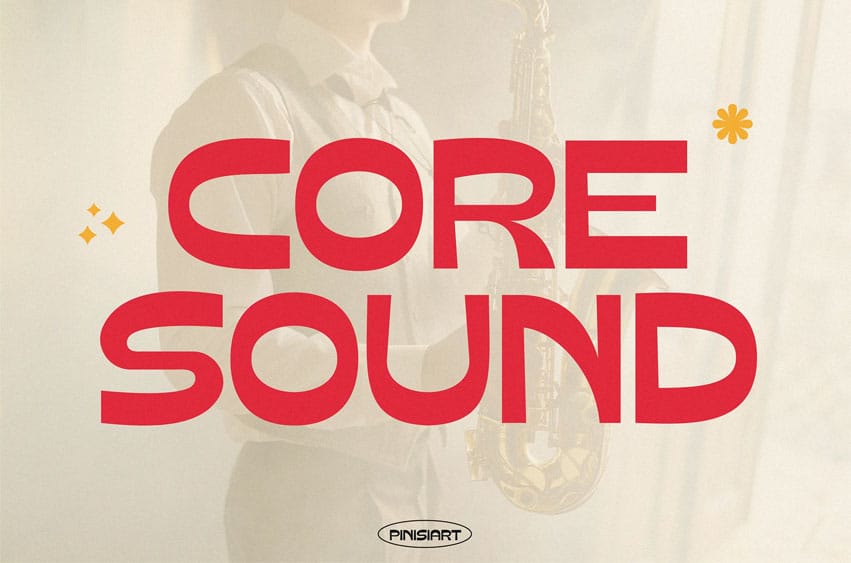
Coresound Font is a retro-inspired display typeface that blends clean rounded forms with rhythmic balance, giving every headline a bold yet approachable energy. With its geometric proportions and smooth letterflow, this font channels the spirit of jazz, groove, and vibrant design culture. Perfect for projects that need expressive impact without sacrificing readability, Coresound creates a strong visual voice for posters, branding, and album covers.
Whether you’re designing a music festival poster, crafting editorial layouts, or shaping brand identities, Coresound brings an energetic retro vibe that captures attention instantly. Its bold rhythm and rounded geometry evoke motion and creativity, making it ideal for creative agencies, music brands, retro packaging, and modern social media graphics. Use Coresound when you want your text to resonate like a strong musical note—memorable, powerful, and full of character.
Key Features :
- Rounded geometric shapes with a rhythmic flow
- Bold, expressive voice for eye-catching headlines
- Retro yet modern versatility across media
- Smooth letterforms for balanced readability
- Perfect for music, arts, and lifestyle branding